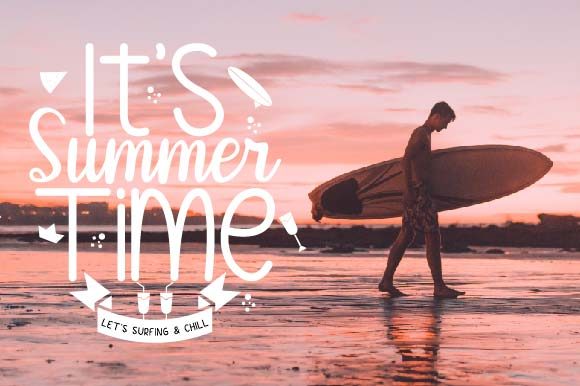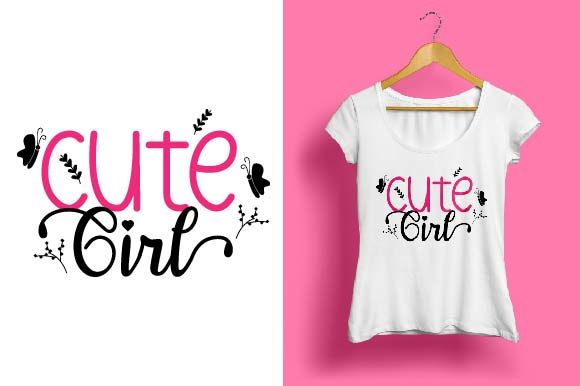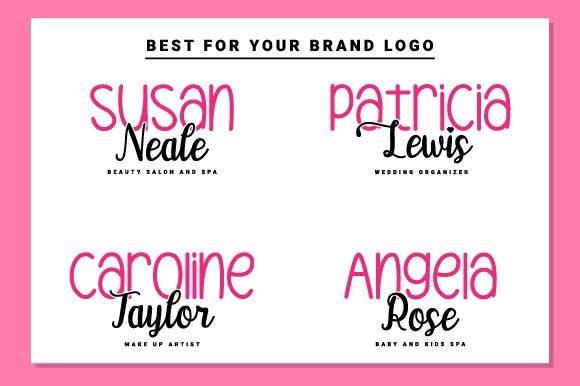
Introduction to Elena Spica Font
Have you ever been in the middle of a creative project, staring at a blank page, and suddenly the perfect font pops into your head? For many designers, this is a moment of pure magic. But what happens when you can’t quite find the right combination of styles to bring your vision to life? This is where the Elena Spica Font comes in – a unique duo font that combines the elegance of a script with the versatility of a sans serif, making it the perfect addition to any design project.
Key Features of Elena Spica Font
- High-quality, elegant script font with a unique, cursive style suitable for creative projects.
- Designed with precision, the Elena Spica Font offers a high level of detail and clarity, ensuring your text stands out in any creative project.
- Perfect for designers, artists, and creatives working on projects that require a touch of elegance and sophistication.
Honest Review: Elena Spica Font
I recently had the chance to work with the Elena Spica Font, and I must say it’s been a game-changer for my creative projects. As a designer, I’m always on the lookout for high-quality fonts that can elevate my designs and make them stand out.
Here are some things that I really like about the Elena Spica Font: ✨ It’s incredibly versatile and can be used for a wide range of creative projects, from branding to editorial content. ✨ The font is highly customizable, allowing me to adjust the size, color, and even add special effects to make it truly unique. ✨ The font is also incredibly easy to read, making it perfect for large blocks of text.
- High-quality design, with intricate details and a unique aesthetic
While the Elena Spica Font is an excellent choice for many designers, I do have a few limitations to note: ⚠️ It may not be the best choice for very small text sizes, as the font can become difficult to read at very small sizes. ⚠️ Additionally, the font may require some tweaking to get it to work perfectly in certain design software.
Overall, I’m thoroughly impressed with the Elena Spica Font and would highly recommend it to any designer looking for a high-quality, versatile font for their next creative project.
To get the most out of the Elena Spica Font, be sure to use it with a transparent background to create a clean and modern look. You can also experiment with different font sizes and colors to create a unique and eye-catching design.